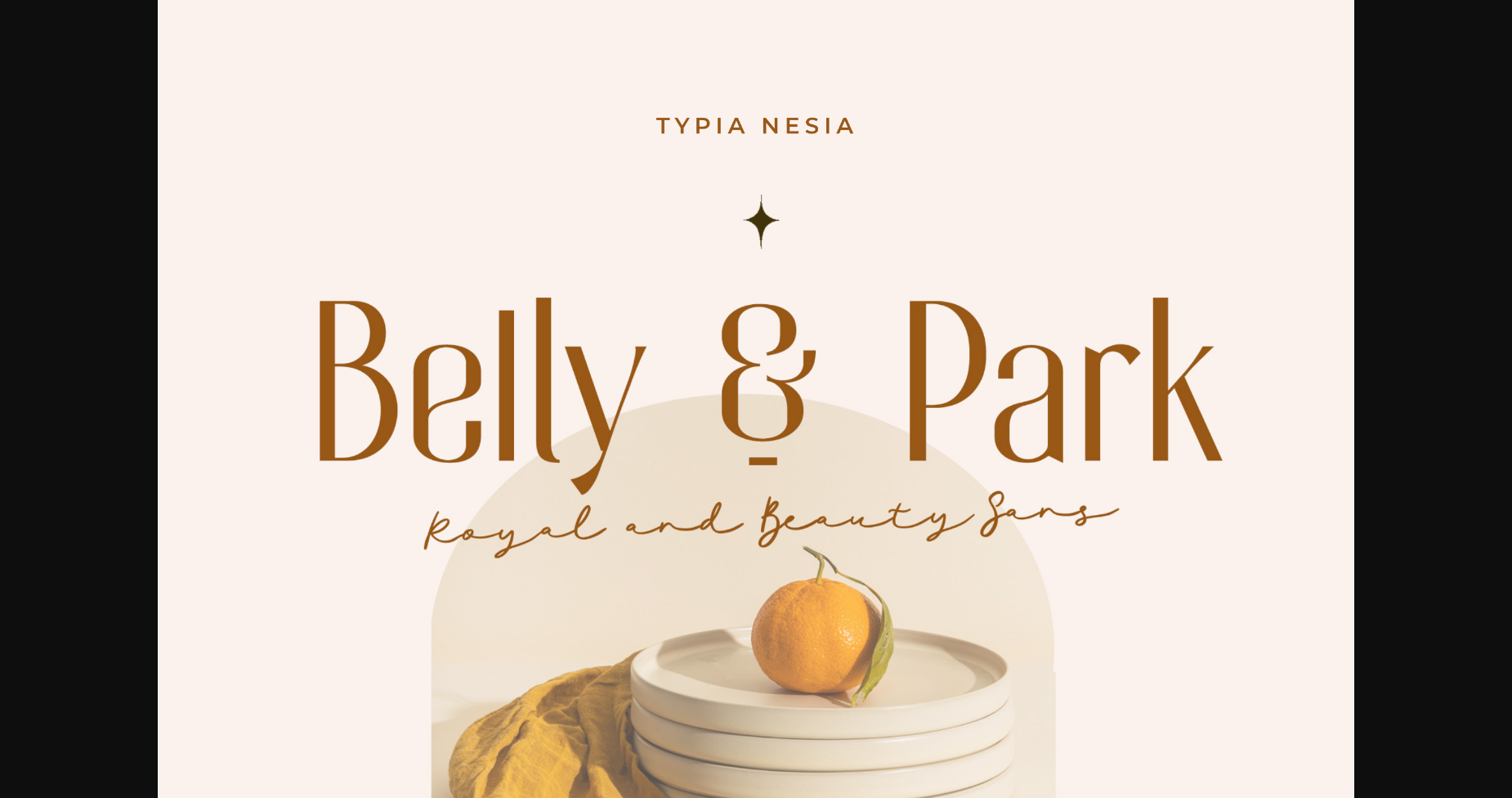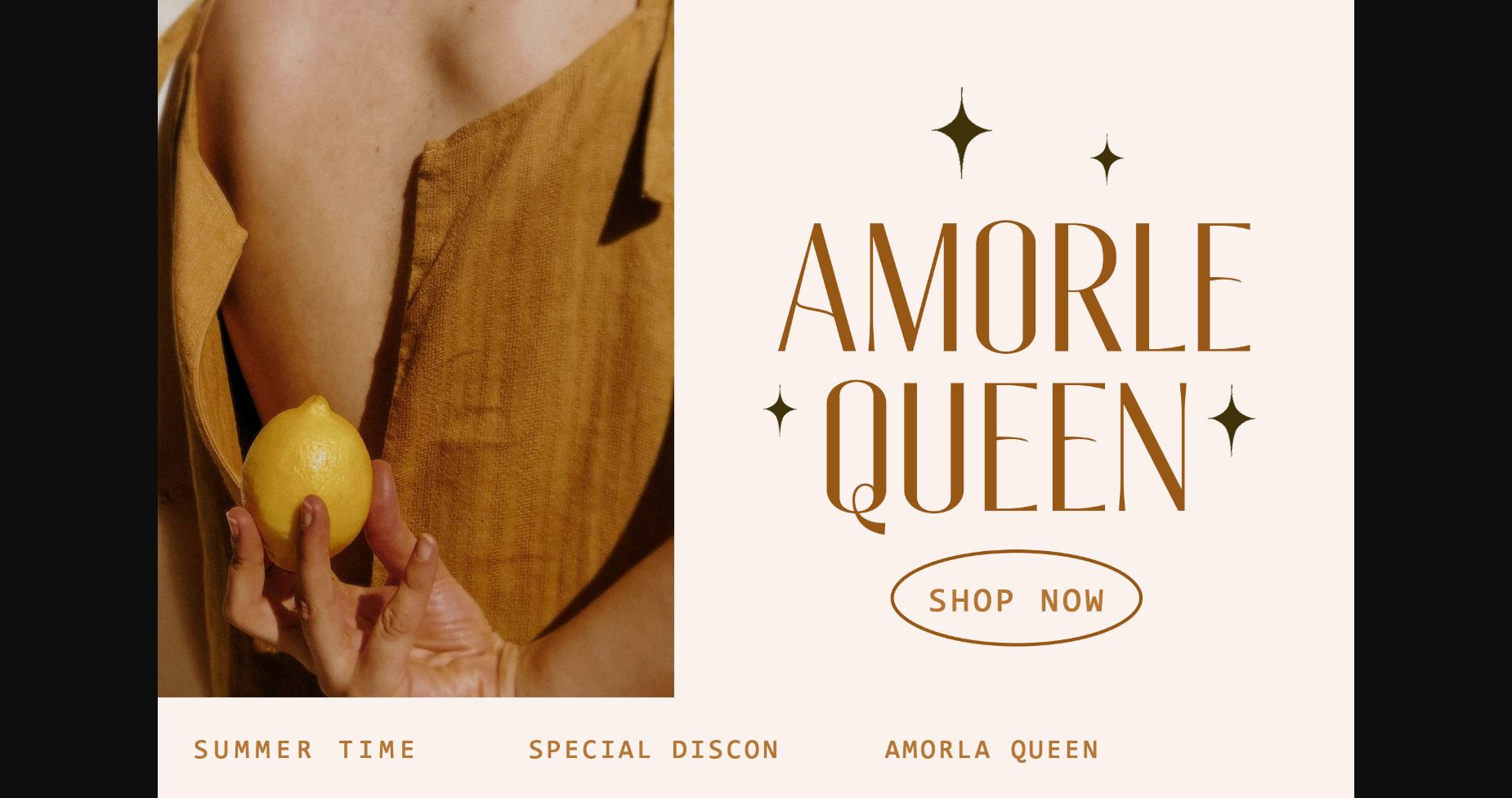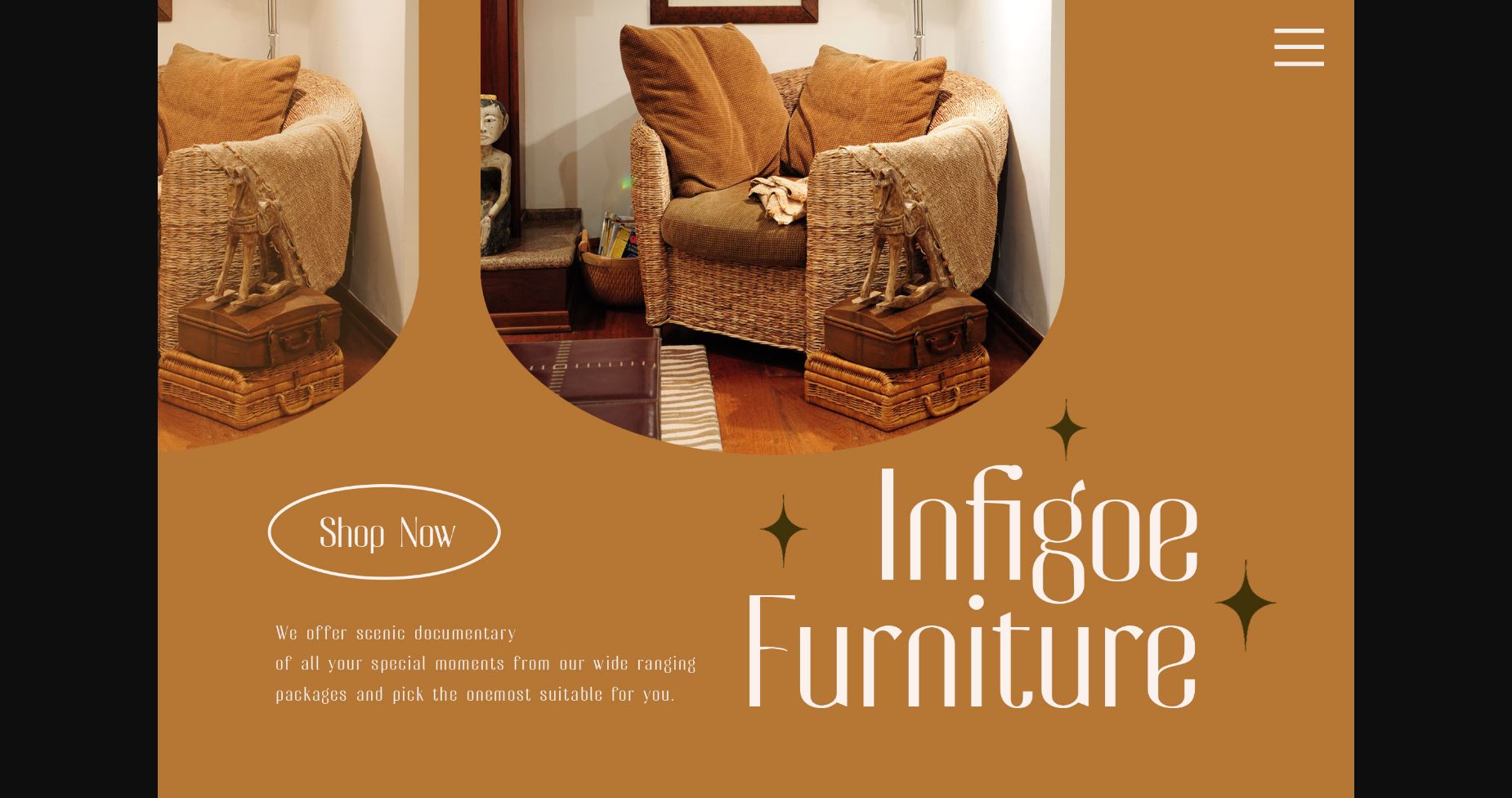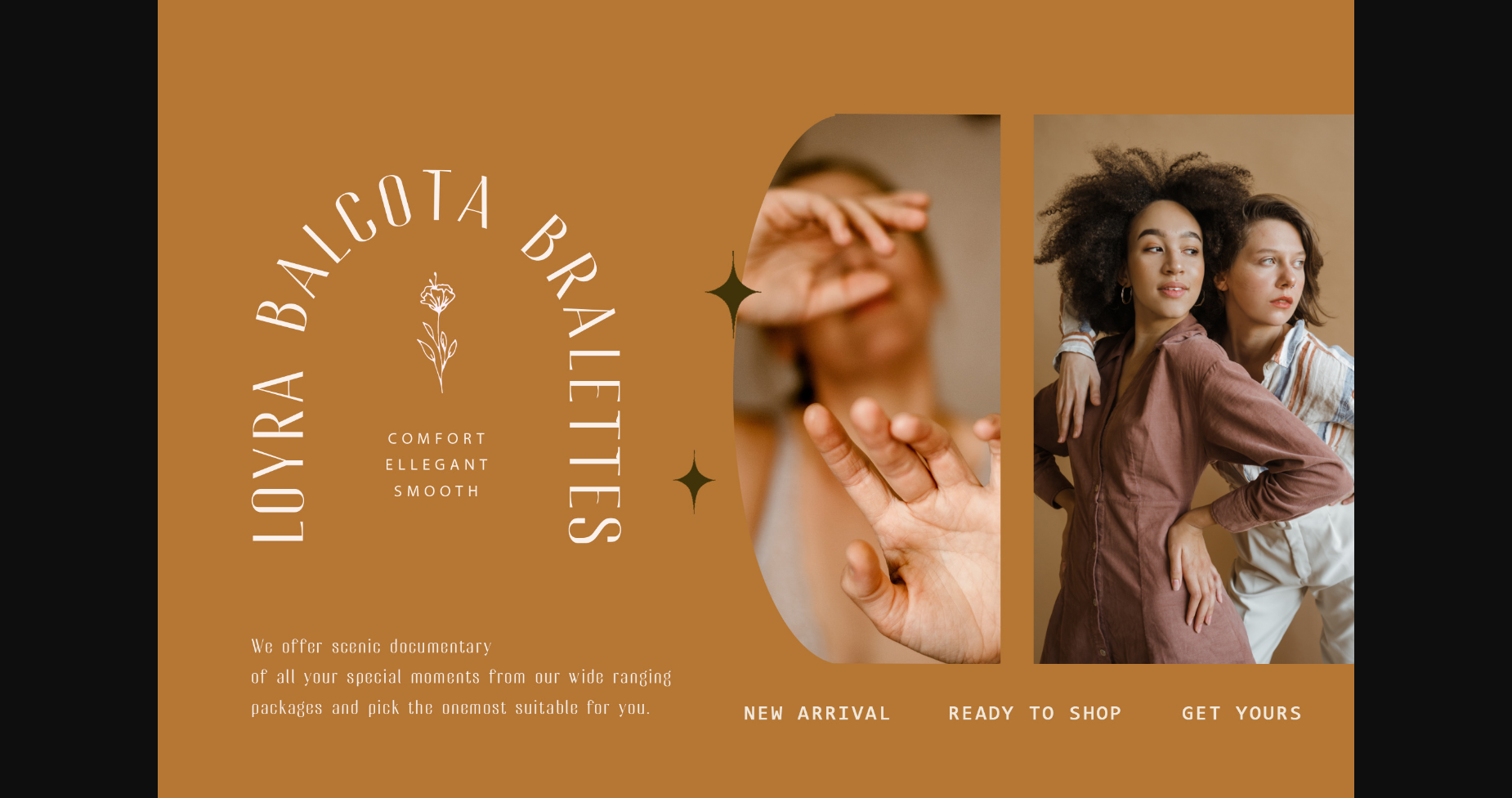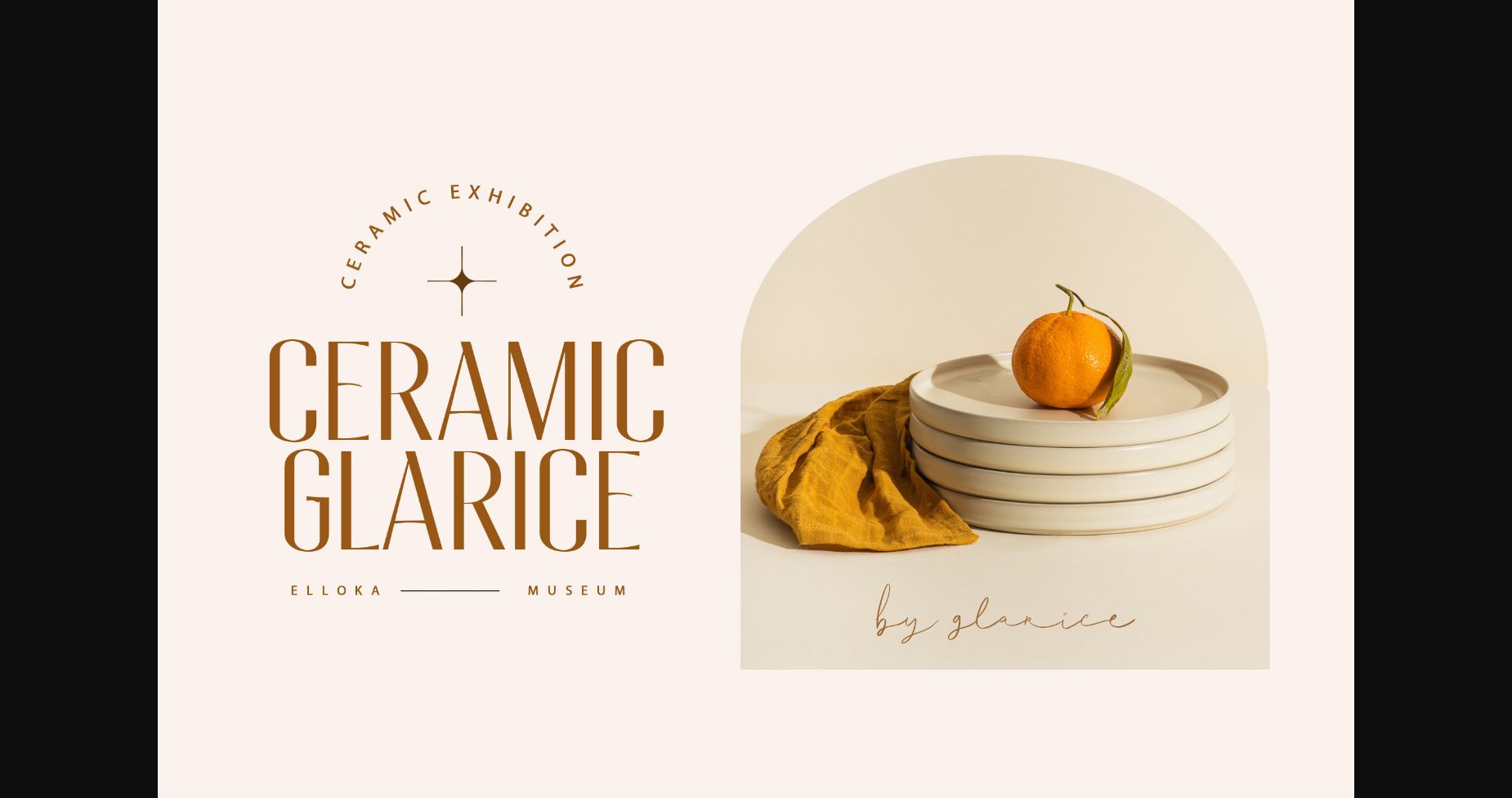
About Belly and Park Font
Belly and Park is a condensed beauty vintage classic sans serif font. Belly and Park come with some ligatures, so you can combine them to make a perfect typography design.
This font is suitable for the luxury logo and branding, classy editorial design, woman magazine, cosmetic brand, fashion promotional, art gallery branding, museum, historical of architectural, boutique branding, or stationery design.
You can also use it for blog design, modern advertising design, card invitation, art quotes, home decor, book/cover title, or special events.
This font is suitable for the luxury logo and branding, classy editorial design, woman magazine, cosmetic brand, fashion promotional, art gallery branding, museum, historical of architectural, boutique branding, or stationery design.
You can also use it for blog design, modern advertising design, card invitation, art quotes, home decor, book/cover title, or special events.